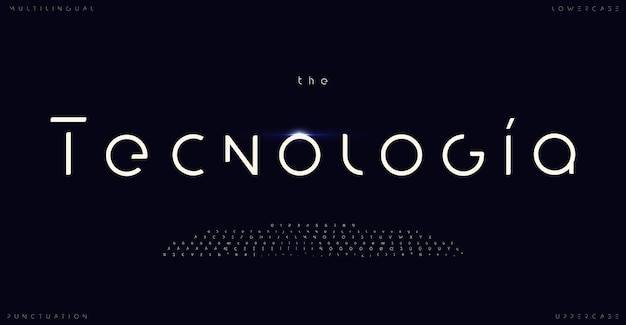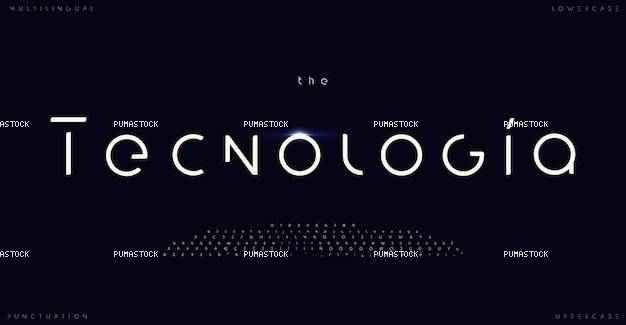
modern minimalistic alphabet multilingual letters numbers and punctuation marks futuristic thin clean font for high tech innovation logo headline branding versatile vector typographic design